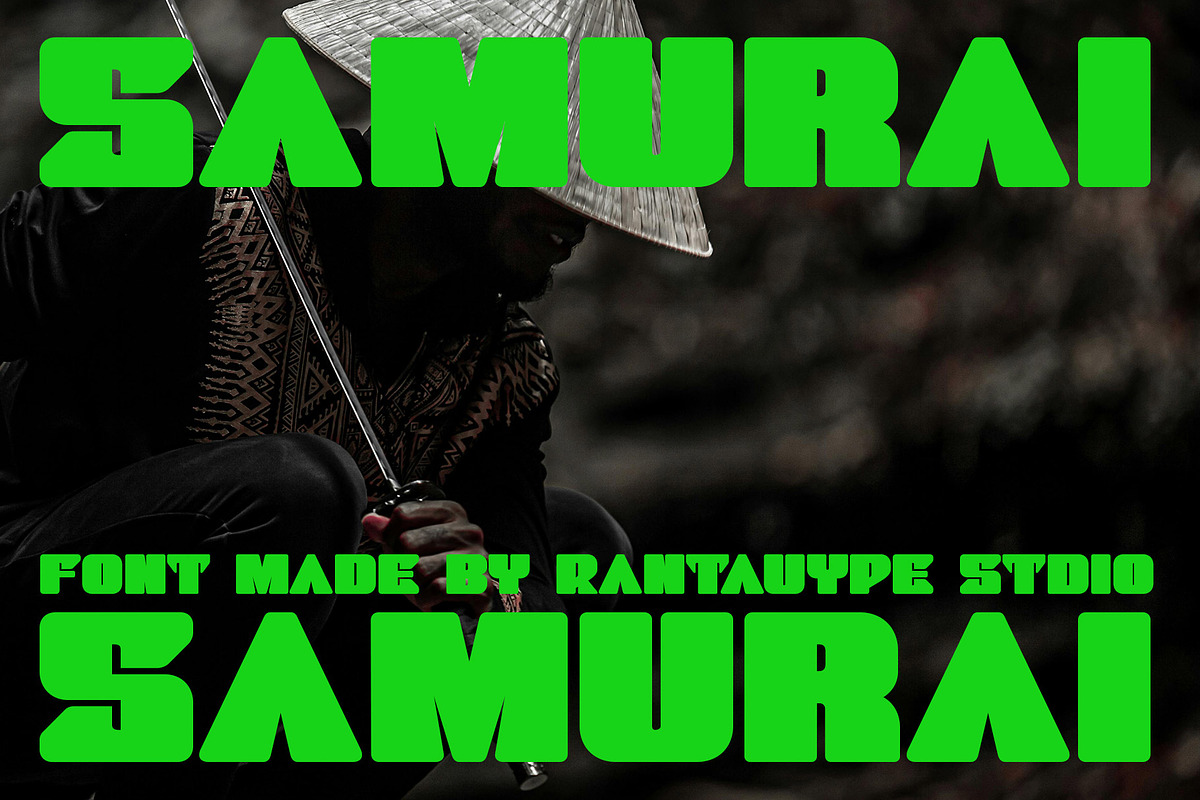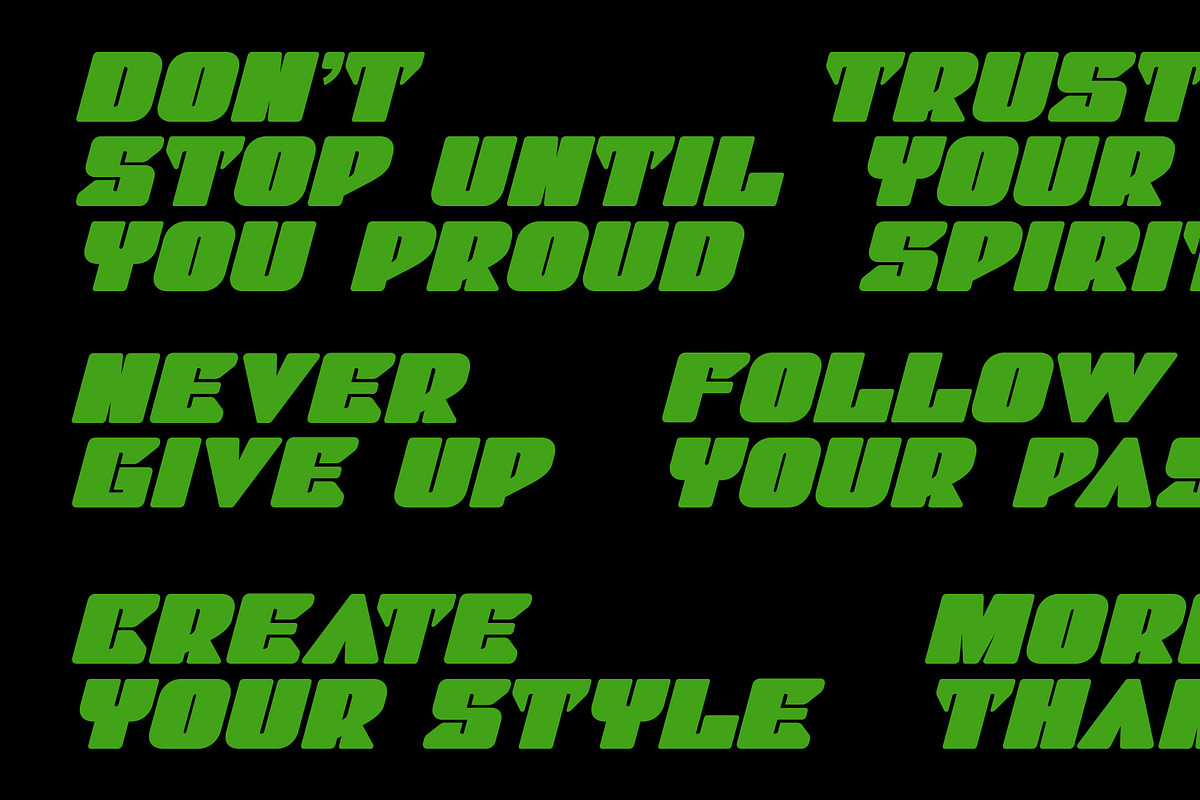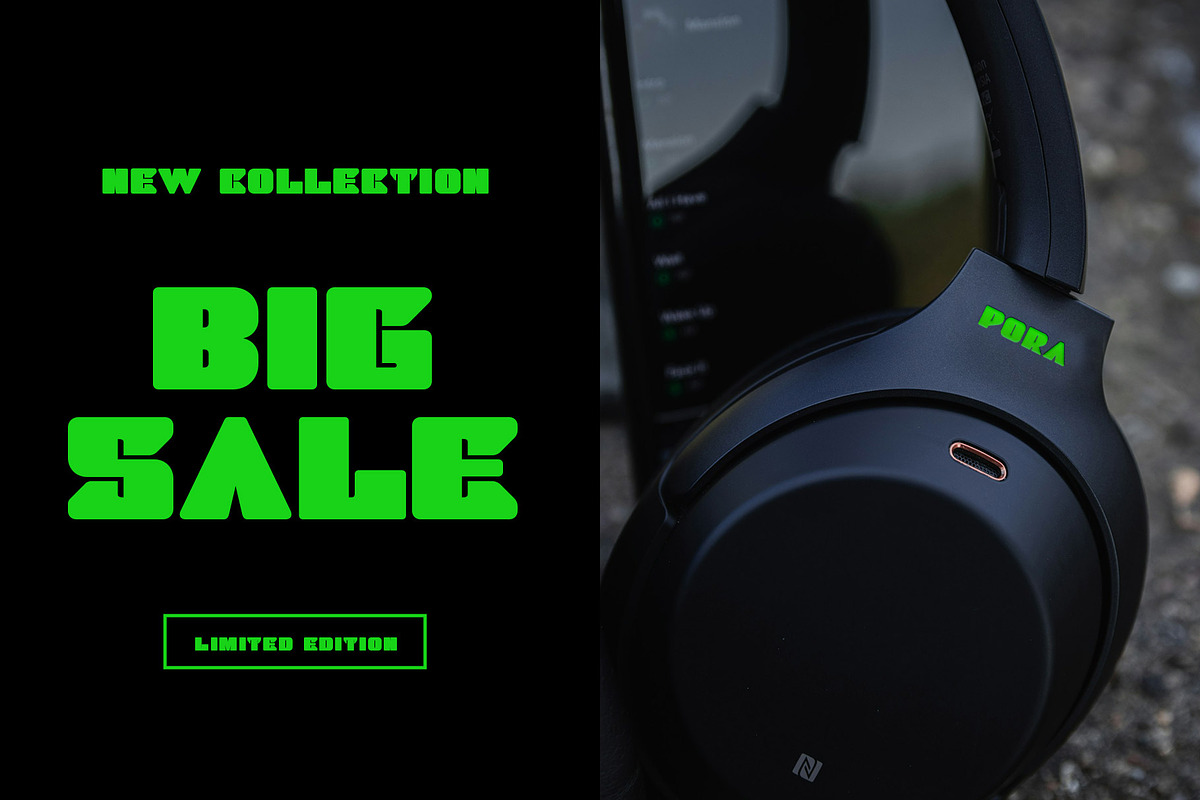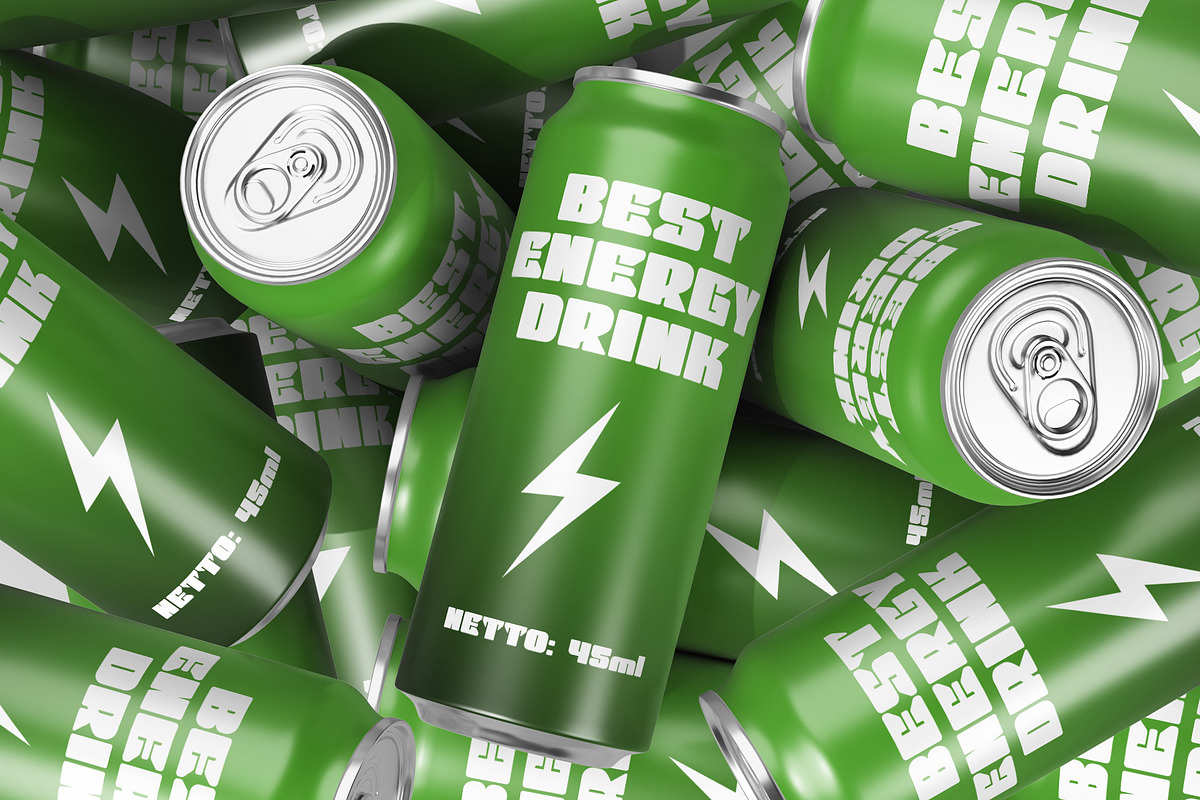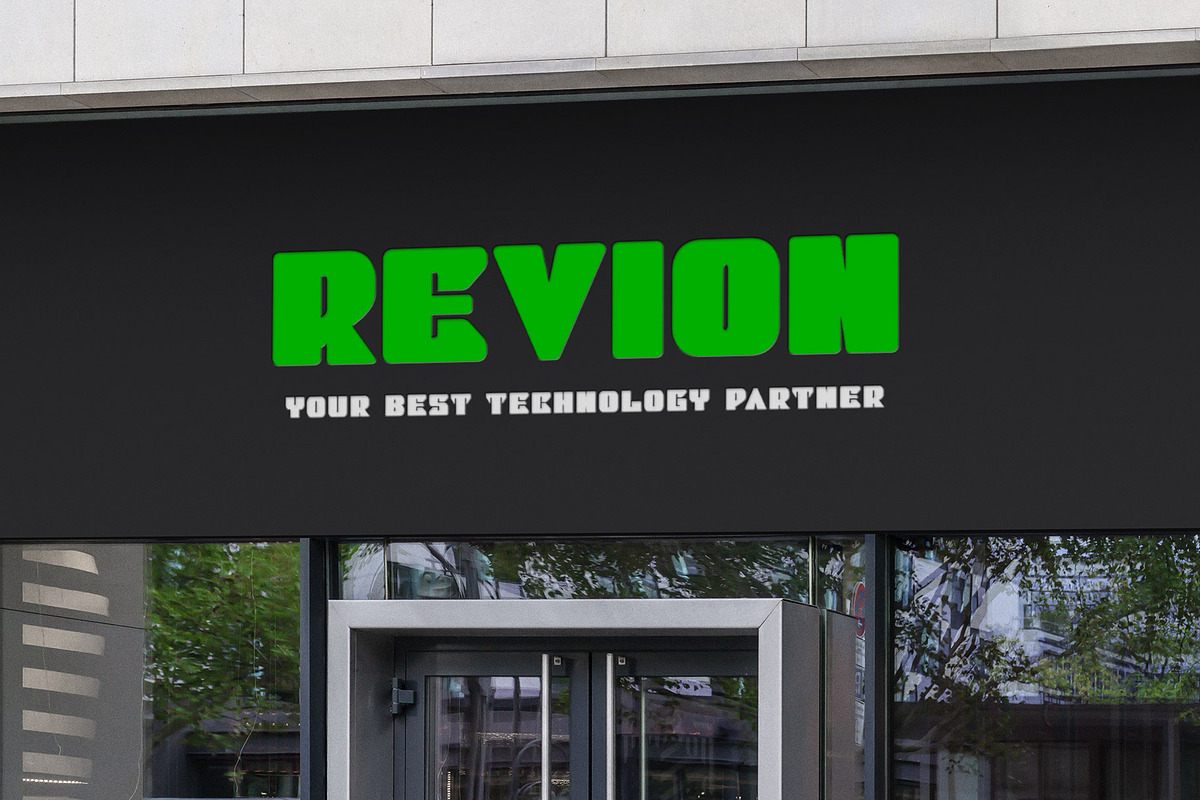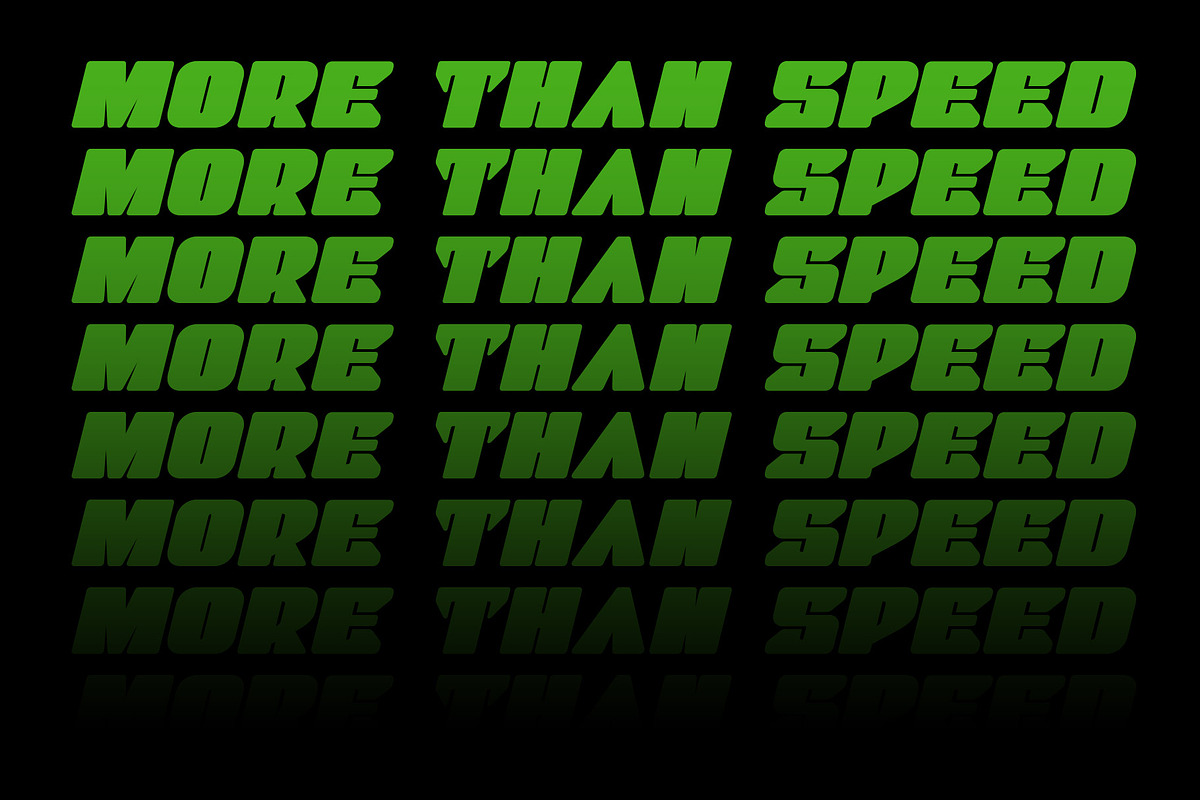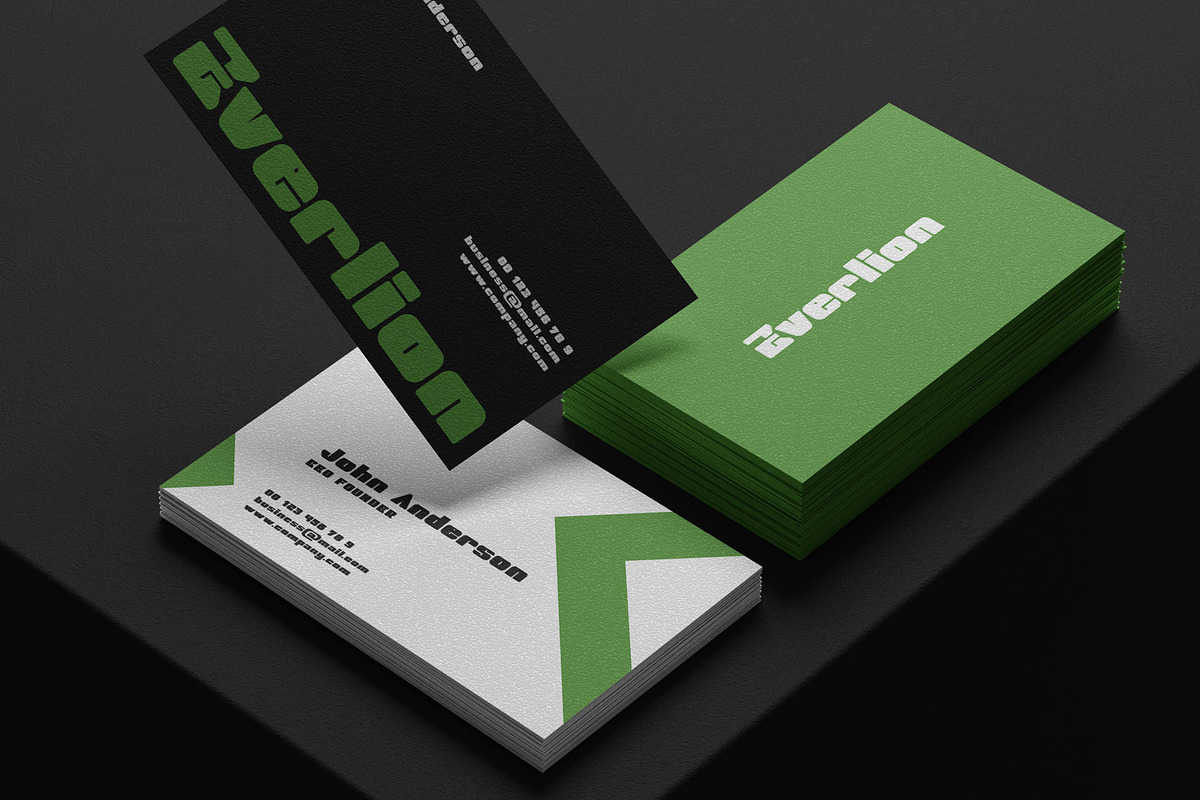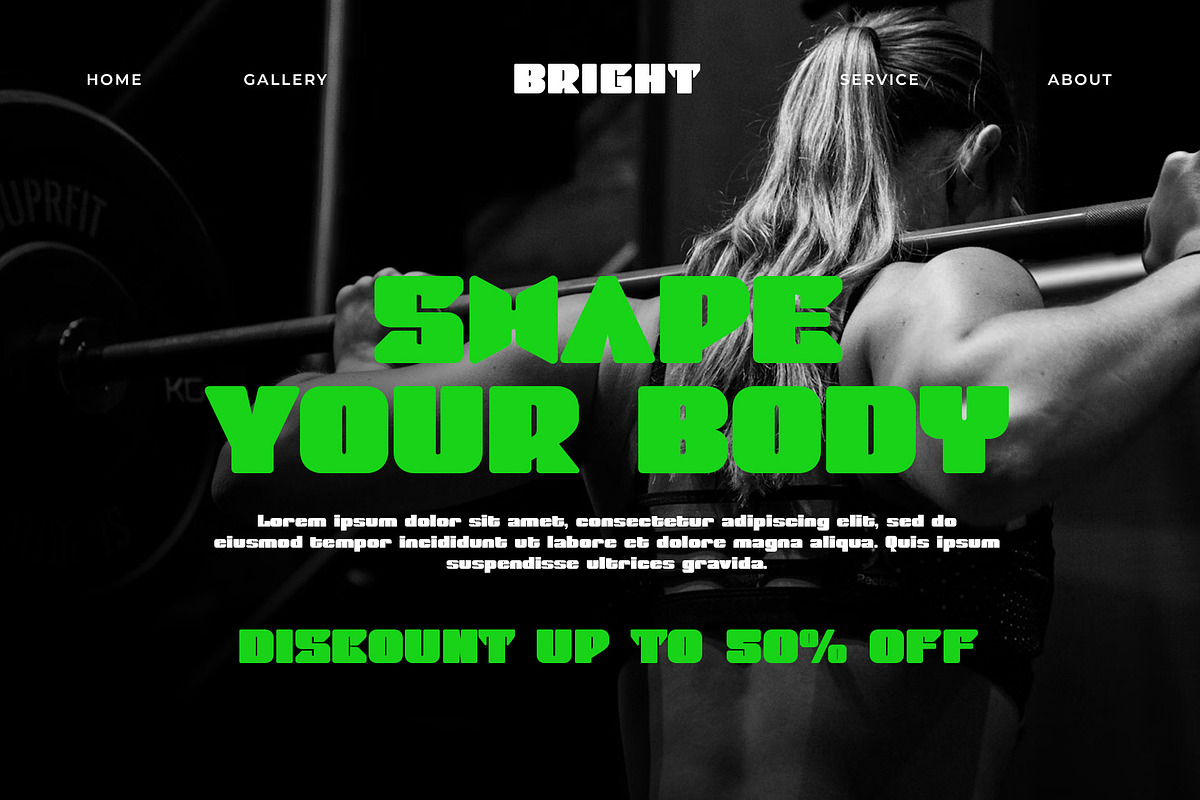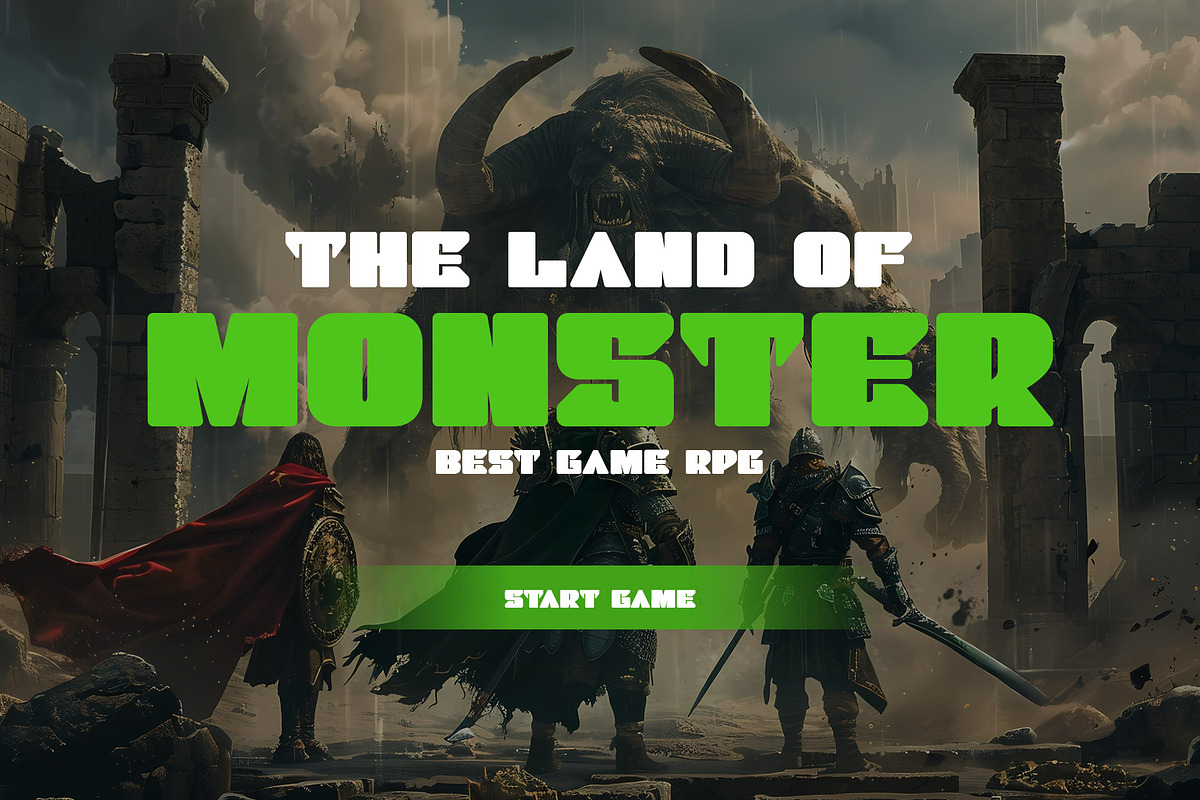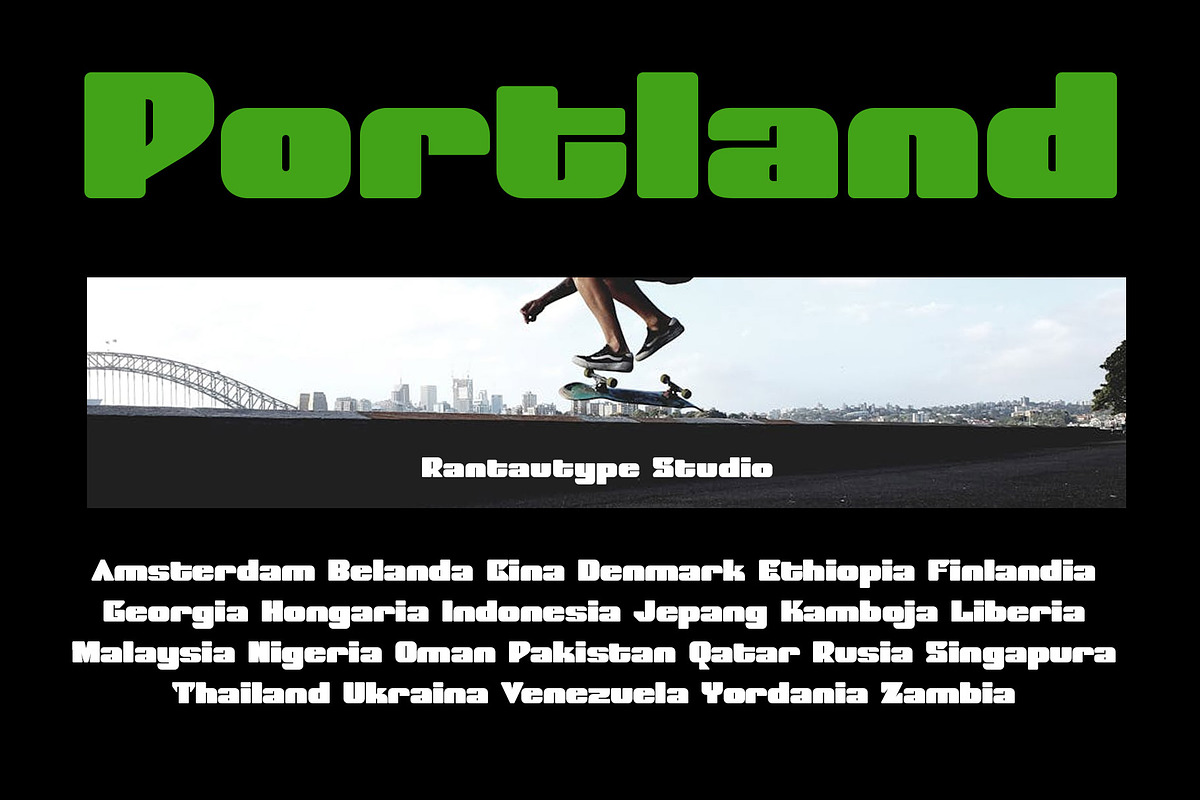
Stenar Modern Display Font
Stenar is modern bold font inspire by sport and game visual design. Stenar bring strong and powerful character to create your design project awesome. Stenar come with more feature, alternate , ligature and already support multilingual character. Stenar is a perfectly choice for any creative endeavor, chic, lifestyle design such as logos, advertisements, stationery, branding project, display and magazine, invitation, corporate brand, product design, label, business project and many other project with modern touch.
- Alternate and ligature